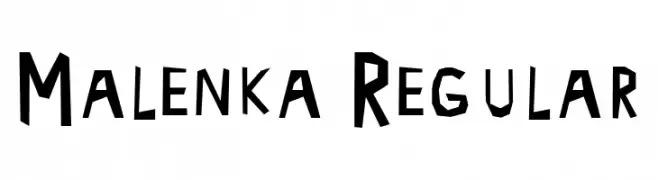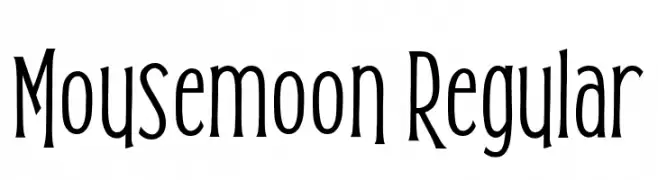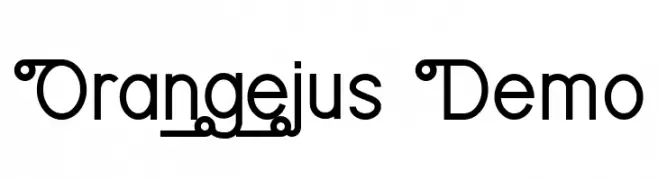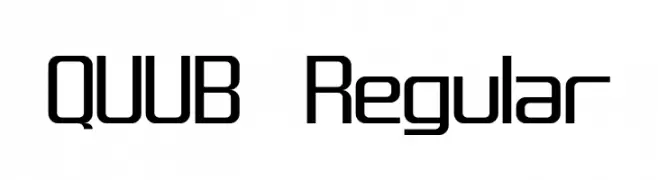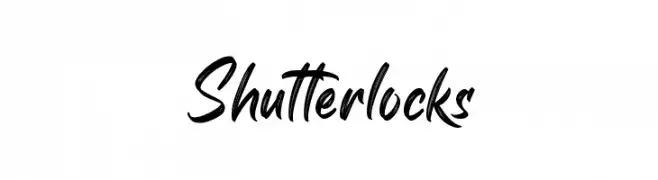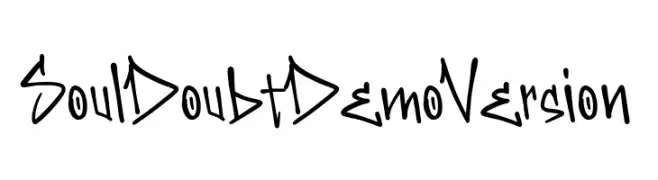
A modern, geometric font with a square-like structure and consistent design.
A bold, expressive script font with fluid, brush-like strokes.
A bold, angular font with a handcrafted, geometric style.
A whimsical and artistic font with elongated, irregular letterforms and dynamic stroke widths.
An edgy, graffiti-inspired font with sharp angles and dynamic energy.
A bold, brush-style font with a dynamic, handwritten appearance.
A distressed, vintage-style font with a textured, stamp-like appearance.
A lively and expressive handwritten font with dynamic letterforms and playful swashes.
A playful, casual handwritten font with rounded, consistent strokes.
A playful and decorative font with circular embellishments on uppercase letters.